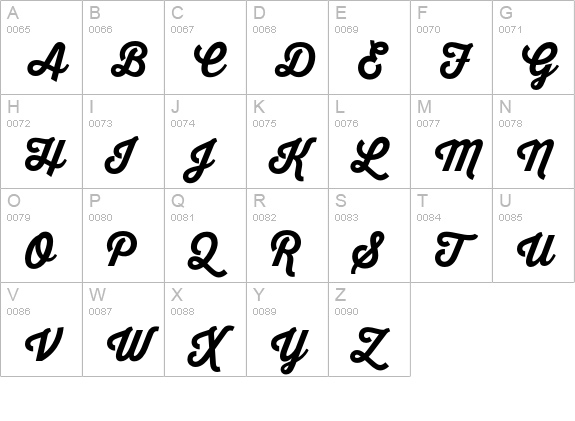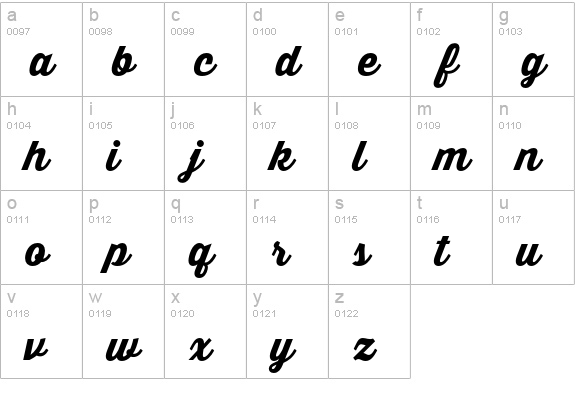
Thirsty Script Extrabold Demo is an extra-heavy, attention-grabbing variant in the Thirsty typeface family \xE2\x80\x94 well suited to high-impact headlines, posters, and bold branding.
Thirsty Script Extrabold Demo font is a stunning and eye-catching typeface that effortlessly combines vintage charm with a contemporary twist. Its bold and expressive letterforms make a powerful statement, perfect for adding a touch of personality to any design project. With its unique hand-drawn style and fluid brush strokes, Thirsty Script Extrabold Demo font exudes a sense of creativity and authenticity. Whether used for logos, headlines, posters, or packaging, this font instantly captures attention and leaves a lasting impression. One of the best things about Thirsty Script Extrabold Demo font is that it is freely available to download at FontsMarket.com. This means that you can enhance your projects with this remarkable font without any cost. It is a fantastic opportunity to access a high-quality typeface that adds a touch of elegance and sophistication to your designs. The versatility of Thirsty Script Extrabold Demo font is another reason to be excited about it. It is equally suitable for both digital and print applications, ensuring that your message stands out no matter where it is displayed. Its legibility ensures that your text will be easily read, even at smaller sizes. If you are looking to make a bold statement and elevate your design work to the next level, Thirsty Script Extrabold Demo font is the perfect choice. Its striking appearance and free availability make it a valuable addition to any designer's toolkit. Download it today at FontsMarket.com and let your creativity flow with this exceptional typeface.